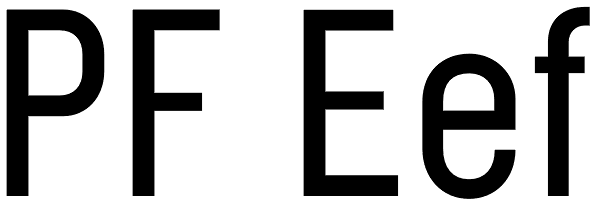
PF Eef
First conceived as the upper-and lowercase “e” for the logotype of independent publishers Elemental Editions, the letterforms were so well received that they were extended to an entire typeface and formed the basis for a bespoke font – Eef. The type...